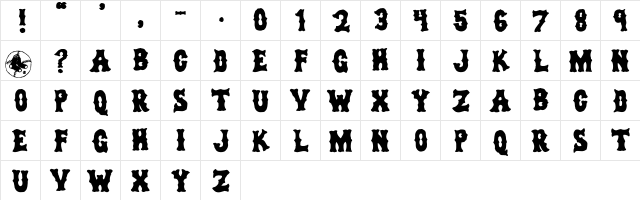
dirty sox Regular
| Foundry | Tim Blount |
| Designer | Tim Blount |
Design Context for dirty sox Typeface
dirty sox is a composed and adaptable typeface that performs quietly and consistently across a wide range of design contexts.